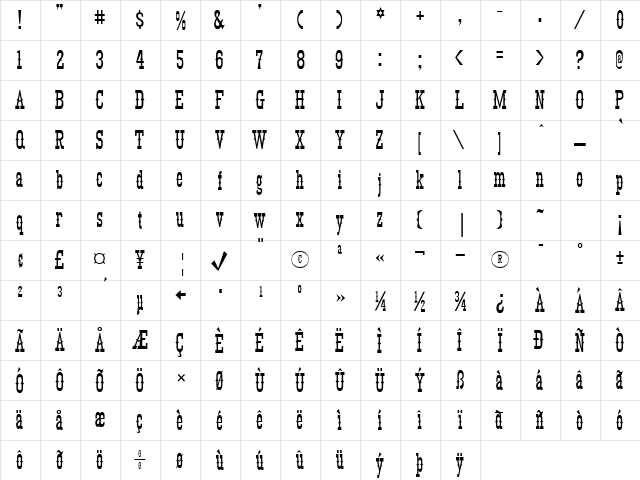
KyhotaBarbed Regular
Design Context for KyhotaBarbed Typeface
KyhotaBarbed offers clean, dependable letterforms without strong stylistic allegiance, making it a practical choice for designers who need flexibility.